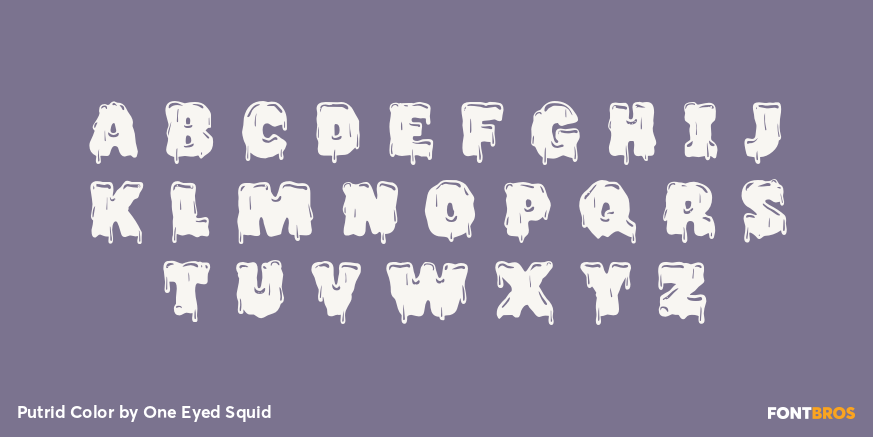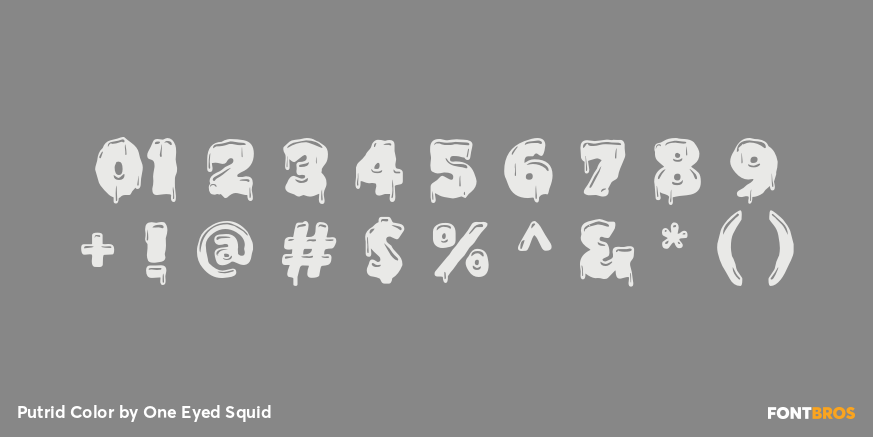
Putrid Color
Font Style by One Eyed Squid
It's snot just your average fetid, festering font! Putrid is piled high with pus, brimming with bile, and dripping with decomposing dribbles.
(Putrid contains an extended Latin character set with added Vietnamese support.)